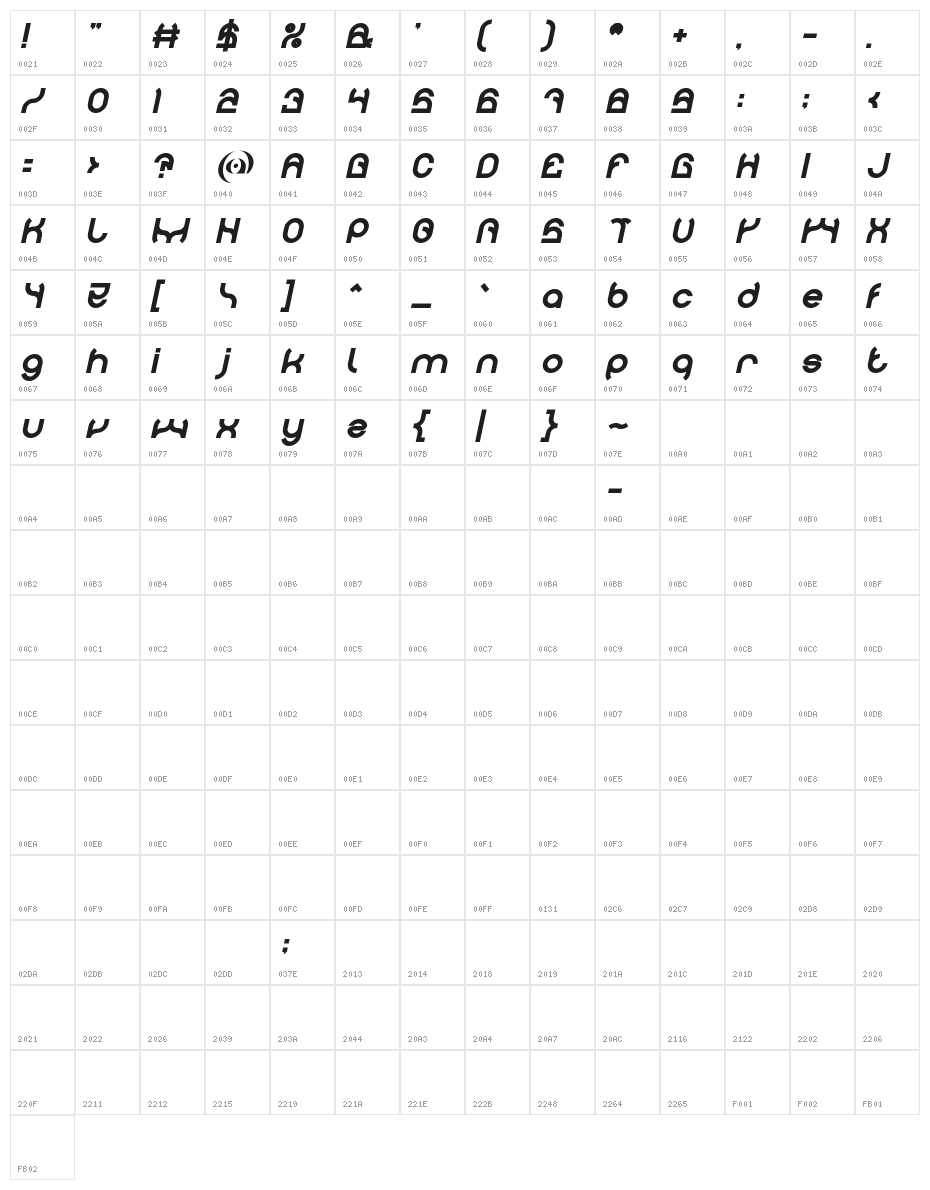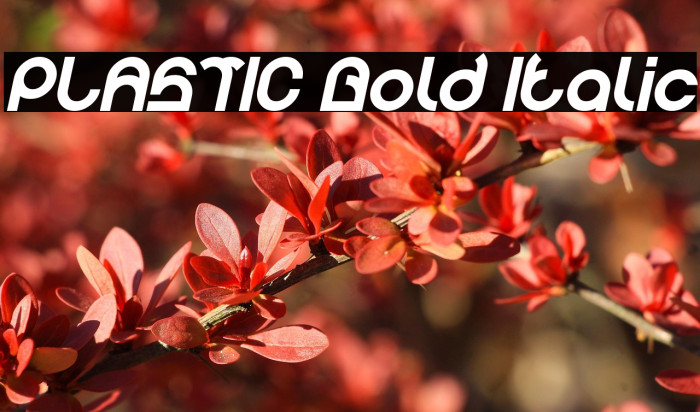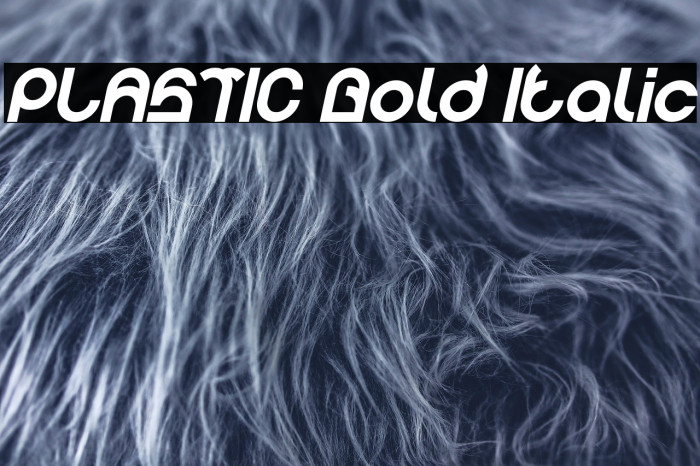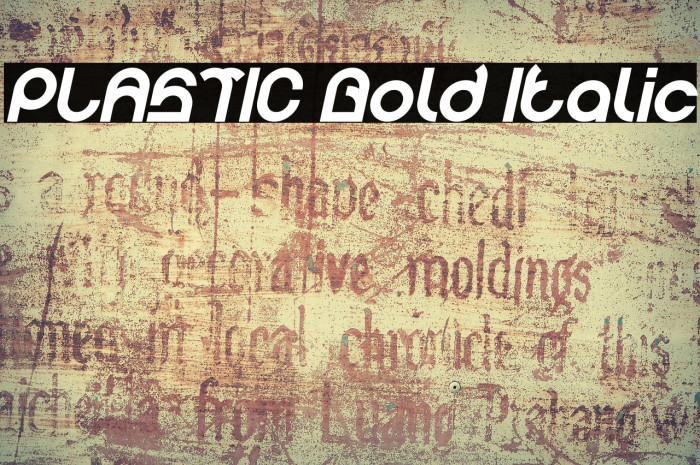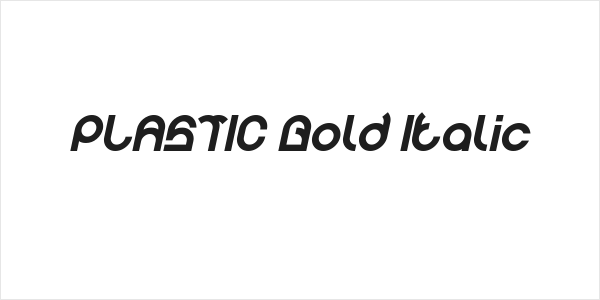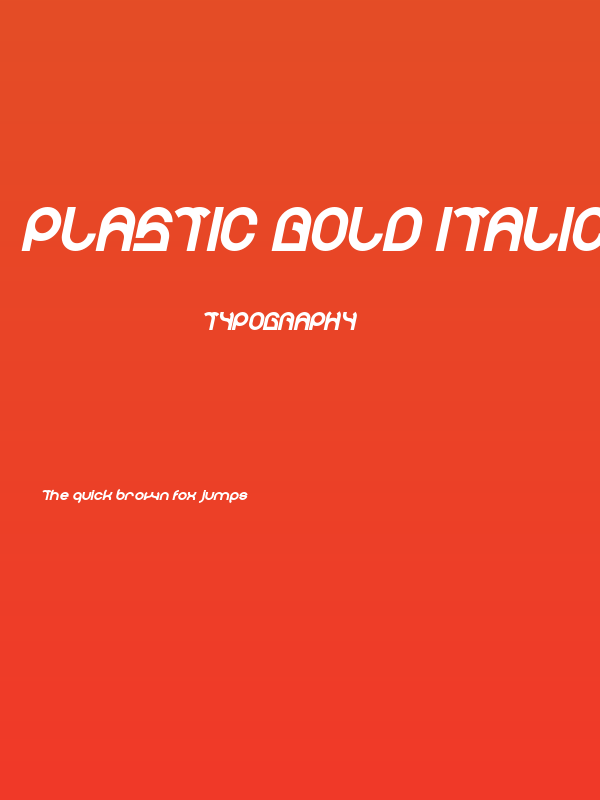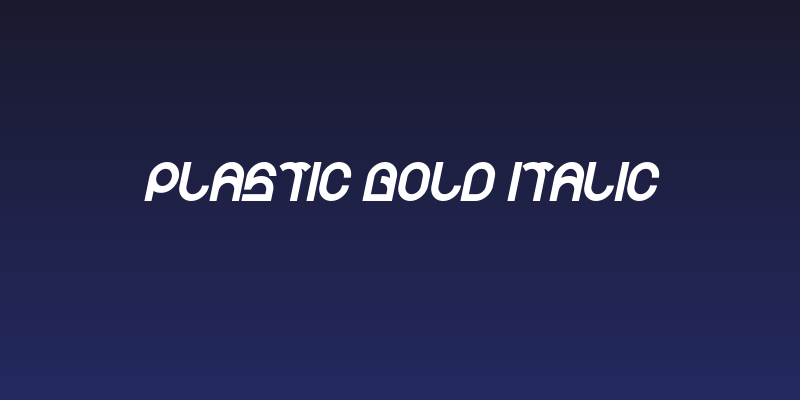
PLASTIC Bold Italic Font
PLASTIC Bold Italic Description
This font features a bold and italicized style with a futuristic and dynamic appearance. The characters are uniquely designed with sharp angles and smooth curves, creating a sense of movement and energy. The uppercase and lowercase letters maintain a consistent style, with the lowercase letters slightly more rounded. The numbers and special characters follow the same bold and italicized theme, ensuring uniformity across all glyphs. The font's overall aesthetic is modern and eye-catching, making it suitable for projects that require a strong visual impact.